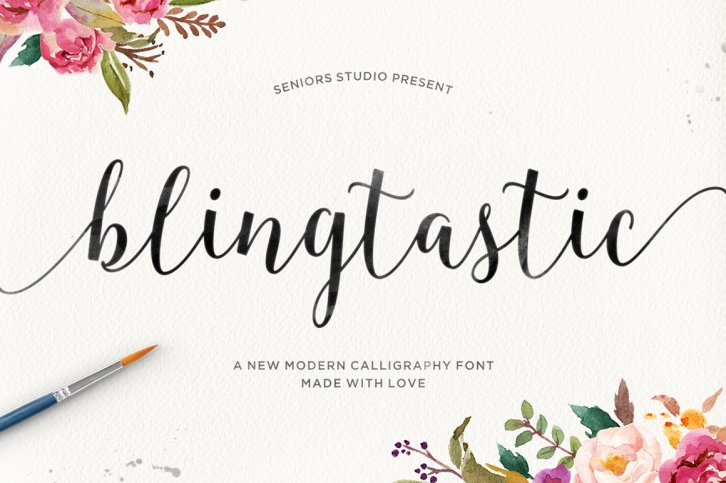
Blingtastic Script is modern & clean calligraphy script, with characters dance along the baseline & elegant touch. Can be used for various purposes.such as logos, wedding invitation, heading, t-shirt, letterhead, signage, lable, news, posters, badges etc.
OpenType features with stylistic alternates, ligatures and multiple language support.